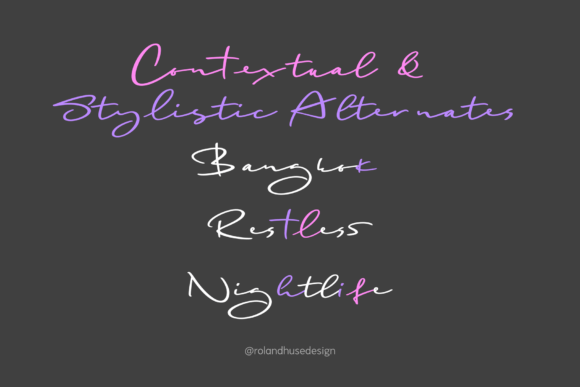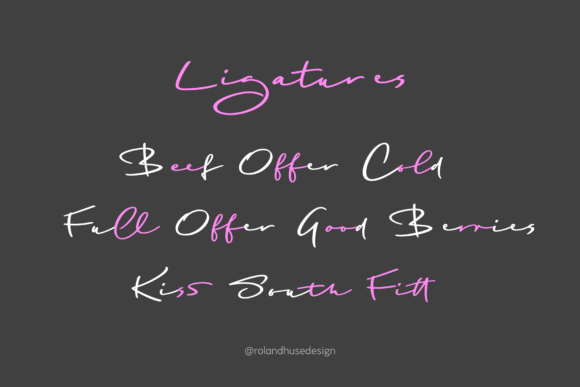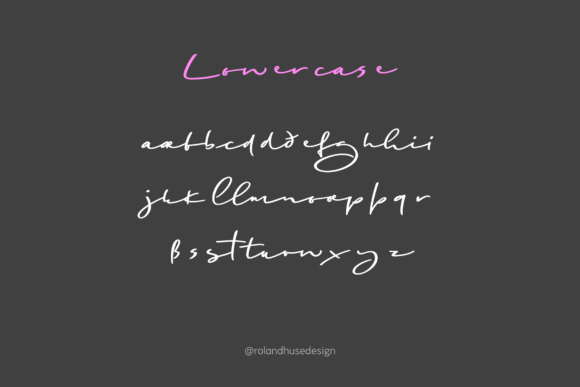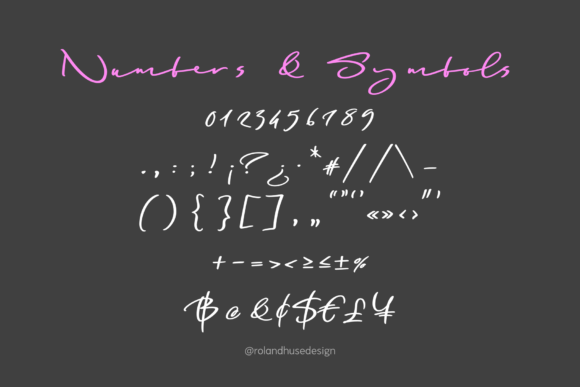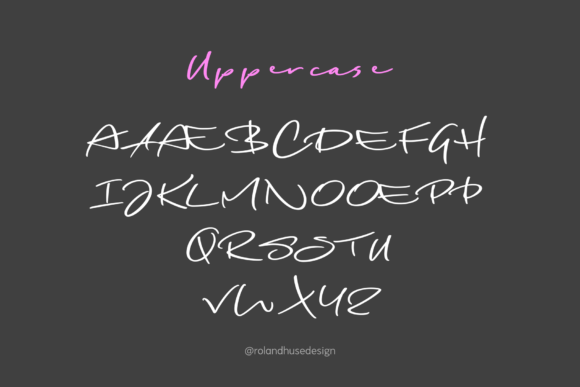
Bangkok Restless Font: Elevate Your Designs with a Playful and Stylish Handwritten Style
In the world of typography, a good font can make all the difference in the success of a design project. Whether you’re a professional designer, a crafty DIY enthusiast, or a social media influencer, having the right font at your disposal can help you stand out from the crowd and convey your message with style. This is where the Bangkok Restless Font comes in – a playful and stylish handwritten font that’s perfect for adding a touch of personality to your creative projects.
What is Bangkok Restless Font?
Bangkok Restless is a modern and fresh handwritten font that’s designed to add a dash of whimsy and flair to your designs. This font is the Bold version of the original Regular weight font, making it a great option for those looking for a more striking and attention-grabbing look. With its unique and stylish letterforms, Bangkok Restless is perfect for a wide range of design applications, from branding and advertising to packaging and social media graphics.
Key Features of Bangkok Restless Font
- Playful and Stylish: Bangkok Restless features a unique and stylish handwritten design that’s perfect for adding a touch of personality to your designs.
- Bold and Striking: As the Bold version of the original font, Bangkok Restless is perfect for making a statement and grabbing attention.
- Contemporary and Fresh: This font boasts a modern and fresh design that’s perfect for designers and crafters looking for a unique and stylish typography option.
- Versatile: Bangkok Restless can be used for a wide range of design applications, from branding and advertising to packaging and social media graphics.
Why Choose Bangkok Restless Font?
So why choose Bangkok Restless Font for your next design project? Here are just a few reasons why this font stands out from the crowd:
- Adds Personality: Bangkok Restless adds a touch of personality and whimsy to your designs, helping you stand out from the crowd and convey your message with style.
- Easy to Read: Despite its playful design, Bangkok Restless is easy to read and understand, making it perfect for use in a wide range of design applications.
- Customizable: As a digital font, Bangkok Restless can be easily customized to suit your design needs, from adjusting the size and color to adding effects and textures.
How to Use Bangkok Restless Font
Using Bangkok Restless Font in your design projects is easy. Here are a few tips to get you started:
- Branding and Advertising: Use Bangkok Restless as a headline font to add a touch of personality and whimsy to your branding and advertising materials.
- Packaging Design: Add a playful and stylish touch to your packaging designs with Bangkok Restless, perfect for product labels, packaging inserts, and more.
- Social Media Graphics: Use Bangkok Restless to add a touch of personality to your social media graphics, from Facebook posts to Instagram stories.
| Font Name | Bangkok Restless Font |
| Author | Roland Hüse Design |
In conclusion, Bangkok Restless Font is a playful and stylish handwritten font that’s perfect for designers and crafters looking to add a touch of personality to their creative projects. With its bold and striking design, contemporary and fresh style, and versatile applications, Bangkok Restless is a great option for anyone looking to elevate their designs and stand out from the crowd. So why not give it a try and see the difference it can make in your next design project?